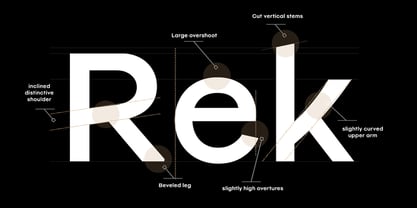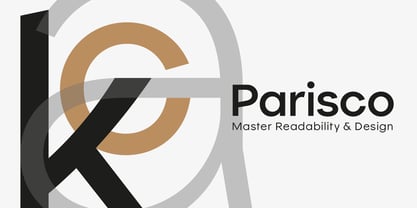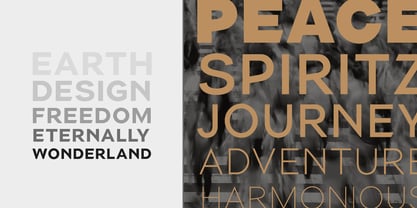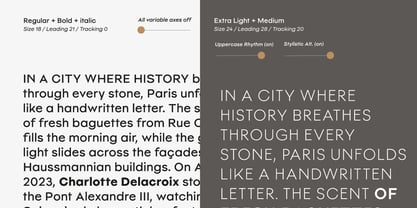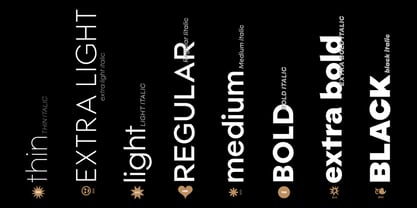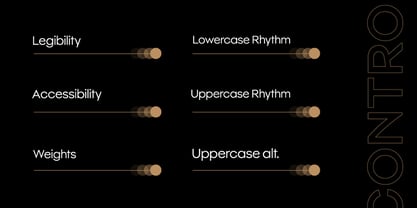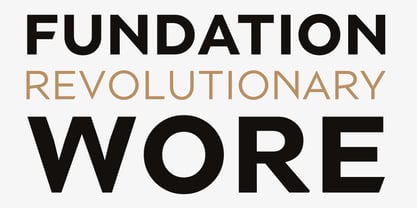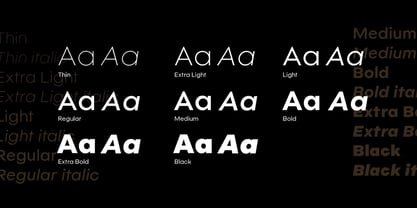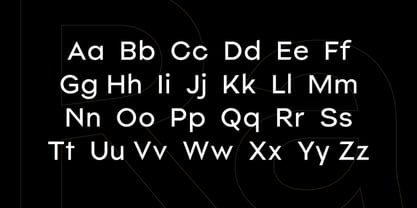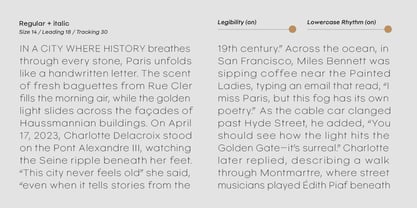
Parisco
by Mostardesign
The Parisco Font Family was designed by Olivier Gourvat and published by Mostardesign. Parisco contains 17 styles and family package options.
Parisco... Just saying the name reveals its origins.
born from the blending of Paris and San Francisco’s names, this geometric typeface was designed as a transatlantic bridge, connecting the typographic heritage of European tradition with the spirit of innovation fueled by bold, liberated creativity.
This sans-serif family includes 8 weights, from Thin to Black, each with its matching italic. It combines structural precision with accessible readability. Behind its seemingly simple forms lies a meticulous construction, softened by humanist details found in the open curves of the C, the unexpected angles of the R, and the sharp, dynamic cuts of the e and k.
But this typeface goes beyond classic geometric design. It embraces the idea that readability itself can be an act of design. Every detail is crafted to guide the eye and clarify the message with intelligence, clarity, and finesse.
Parisco reveals a rare functional flexibility. Thanks to its variable features, everything from rhythm, optical size, and weight to italic angle and spacing can be adjusted instantly. All settings are visible at a glance through the variable font panel. Precision, speed, and intuitive control make every adjustment feel as smooth as a swipe.
This is the strength of a responsive and contemporary typeface that delivers a seamless visual experience. Versatile by nature, it performs equally well in extended reading and impactful headlines, further enhanced by a dedicated stylistic set designed to boost presence without disturbing overall balance.